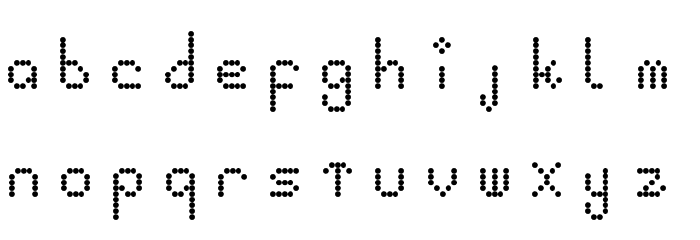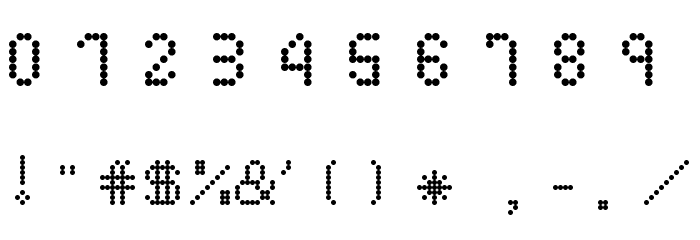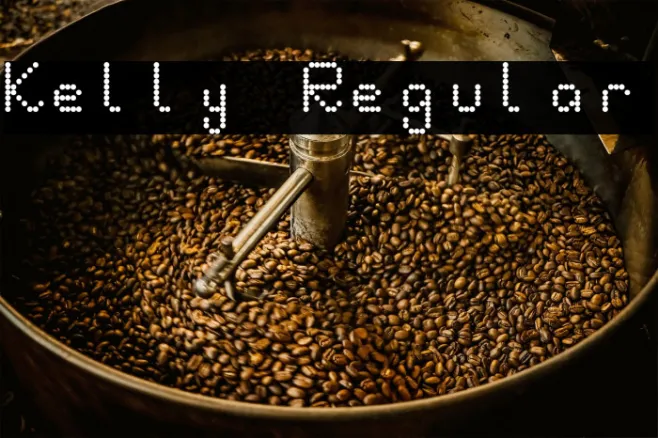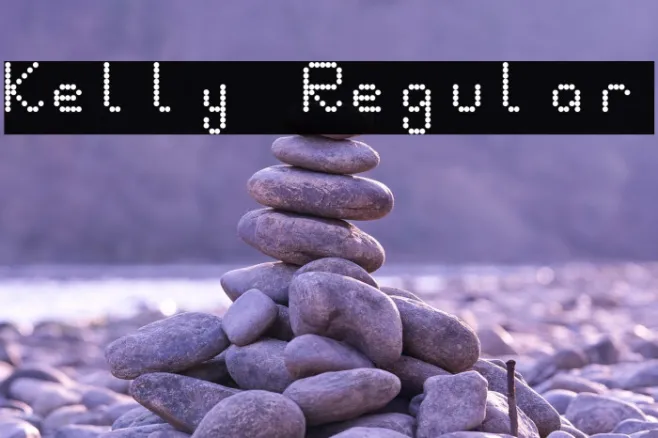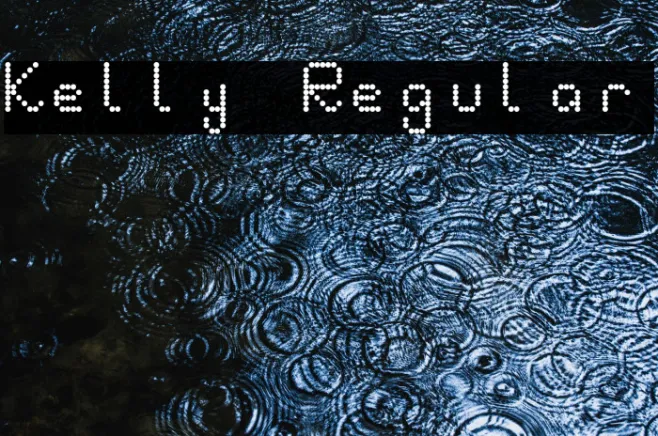
Kelly Regular Font
This font is a unique and playful design composed entirely of dots, creating a dotted outline for each character. The uppercase and lowercase letters, as well as numbers and special characters, maintain a consistent dot pattern, giving the font a cohesive and uniform appearance. The spacing between the dots is even, which contributes to its readability despite its unconventional style. This font is ideal for creative projects where a fun and informal look is desired. Its distinct appearance makes it stand out, making it suitable for eye-catching designs.
A playful, dotted font with a unique and informal style.
- Proposed Projects: Ideal for posters, children's books, party invitations, and creative branding projects.
- Use Case: Logos, Headlines, Creative projects